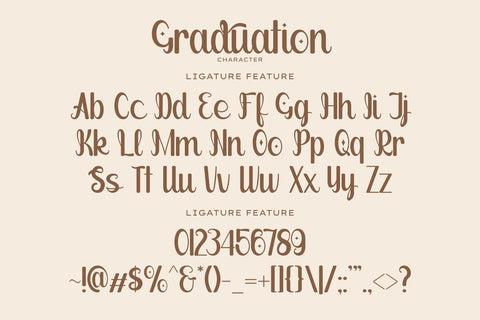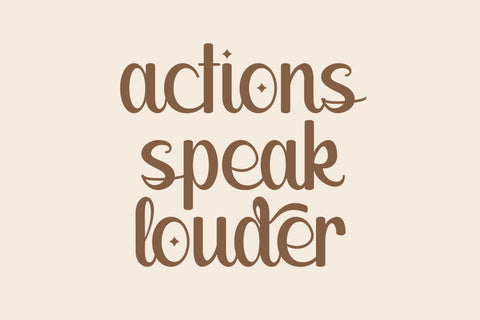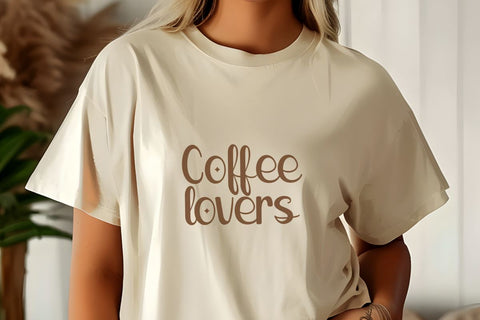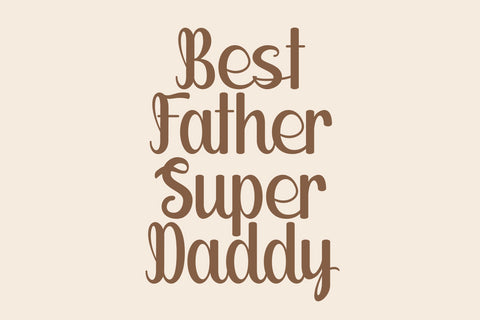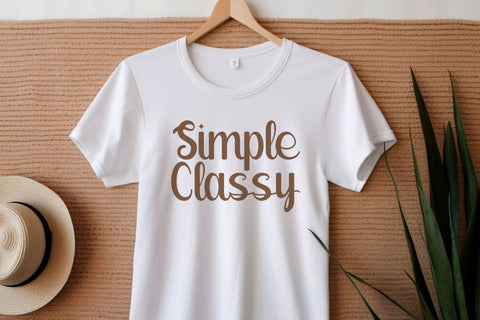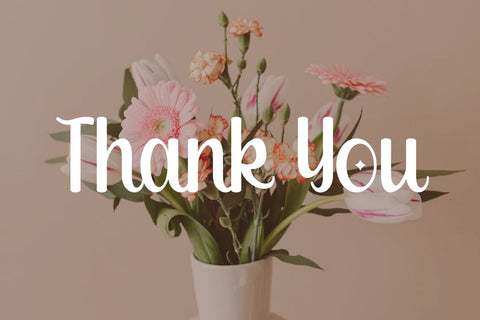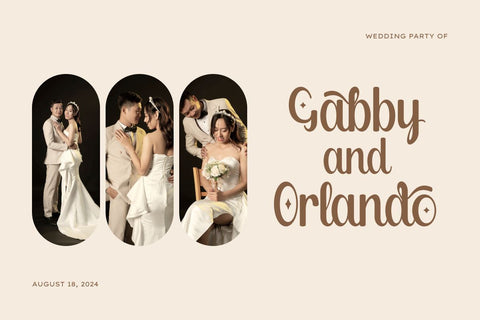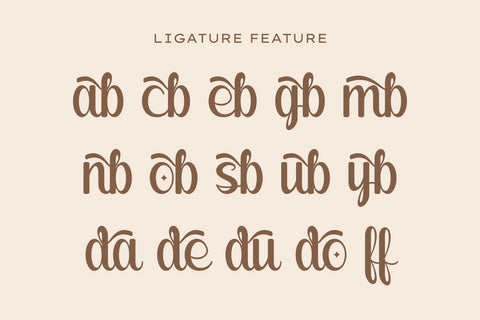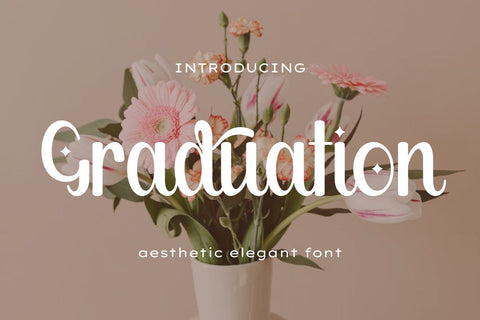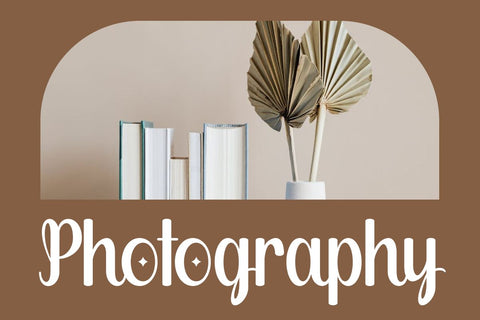
Graduation - Aesthetic Handwritten Font
Graduation is a handwritten script font that offers an elegant and personal touch to each character. Inspired by handmade strokes, this font brings a natural handwritten feel that is warm and inviting. Each letter displays uniqueness in every curve and stroke, creating a relaxed yet refined atmosphere. Ideal for design projects that seek a personal touch, such as wedding invitations, greeting cards, brand logos, and other design elements that require a warm and elegant atmosphere.